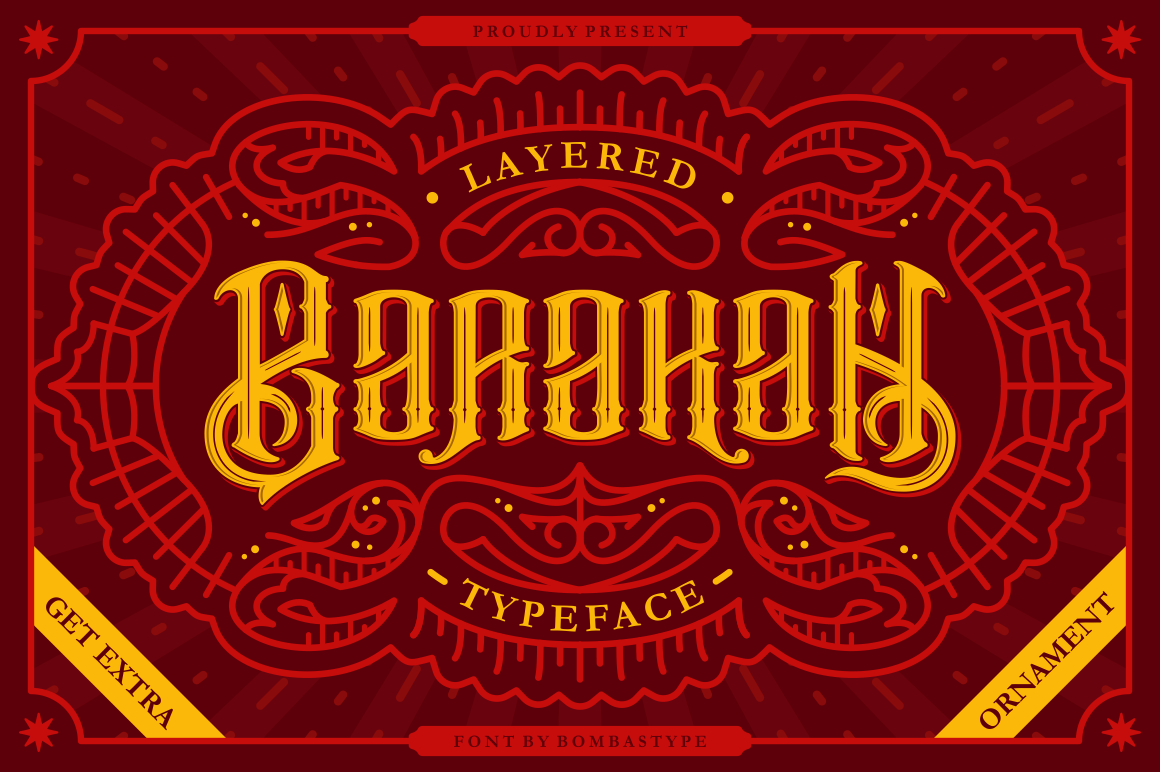
Barakah Layered Typeface + Extras
Introducing our very first font ever made. It's called Barakah Typeface , a multi-layered victorian font ( Regular - Inline - Inner Shadow - Drop Shadow ). This font inspired by Vintage Design ( especially from Tattoo Label and Vintage Signage ) .
Barakah Typeface is perfect for Logotype , Poster, Flyer, Label, or any Display design purpose. Because your creativity is limitless.
- 320+ Total Glyphs each font
- Standard Character ( Uppercase, Lowercase, Numeric, Currency, Punctuation )
- Alternates Character
- Extra Ornaments